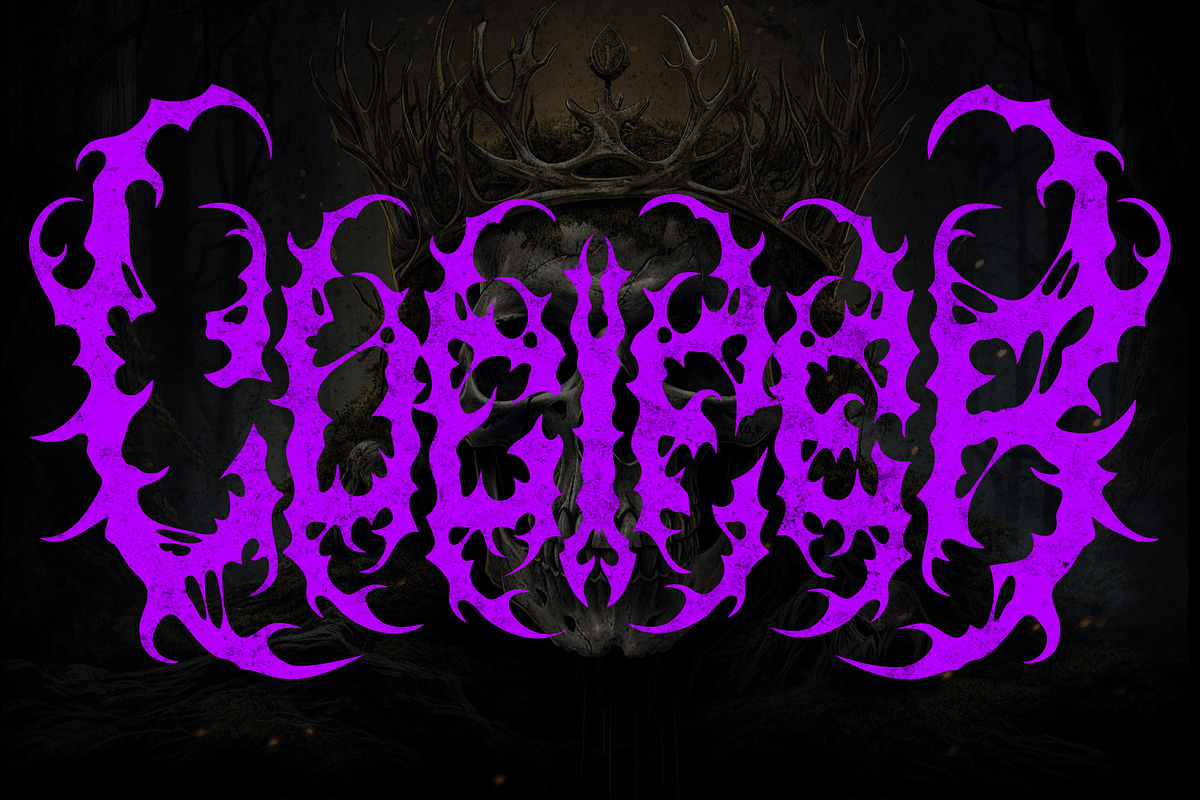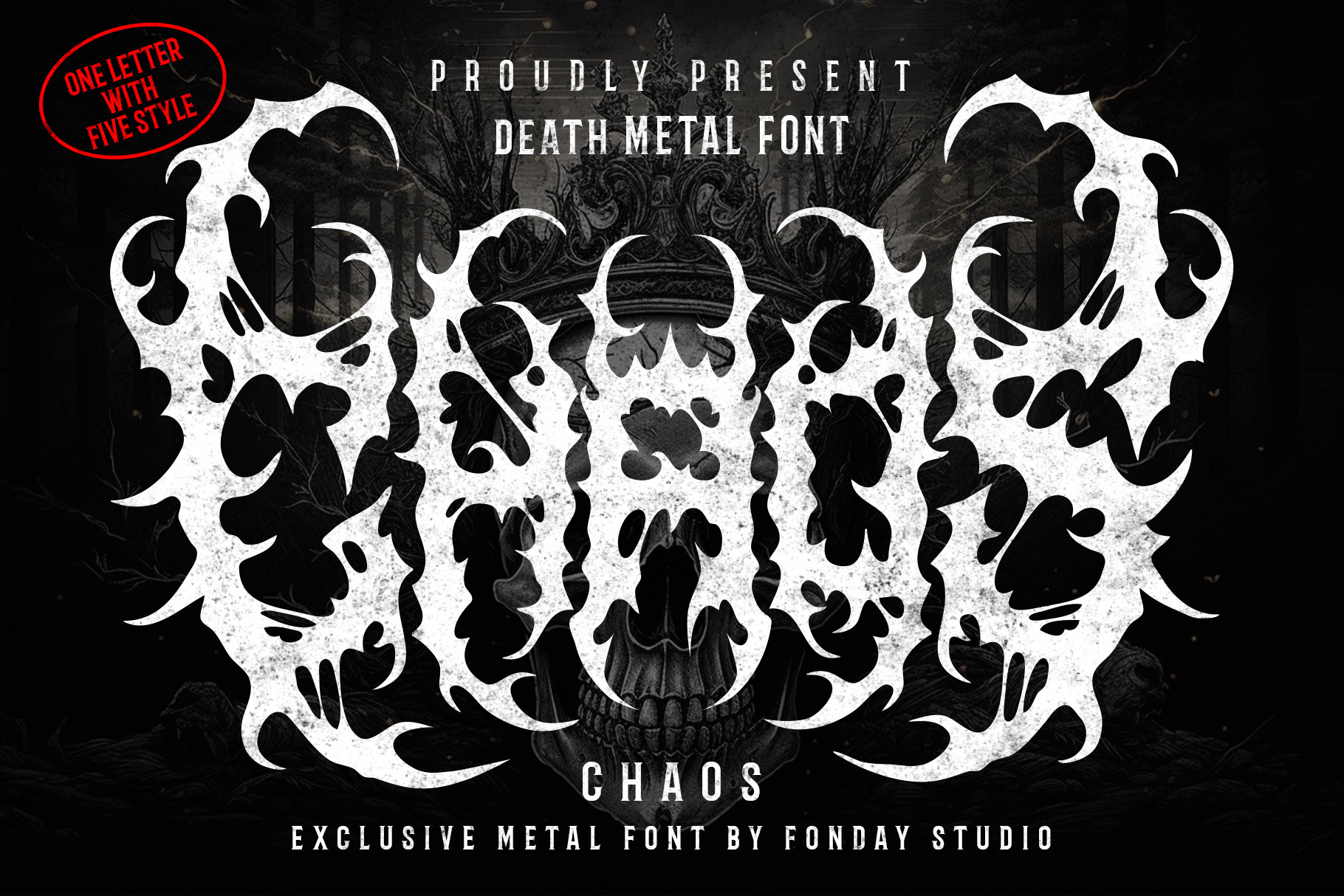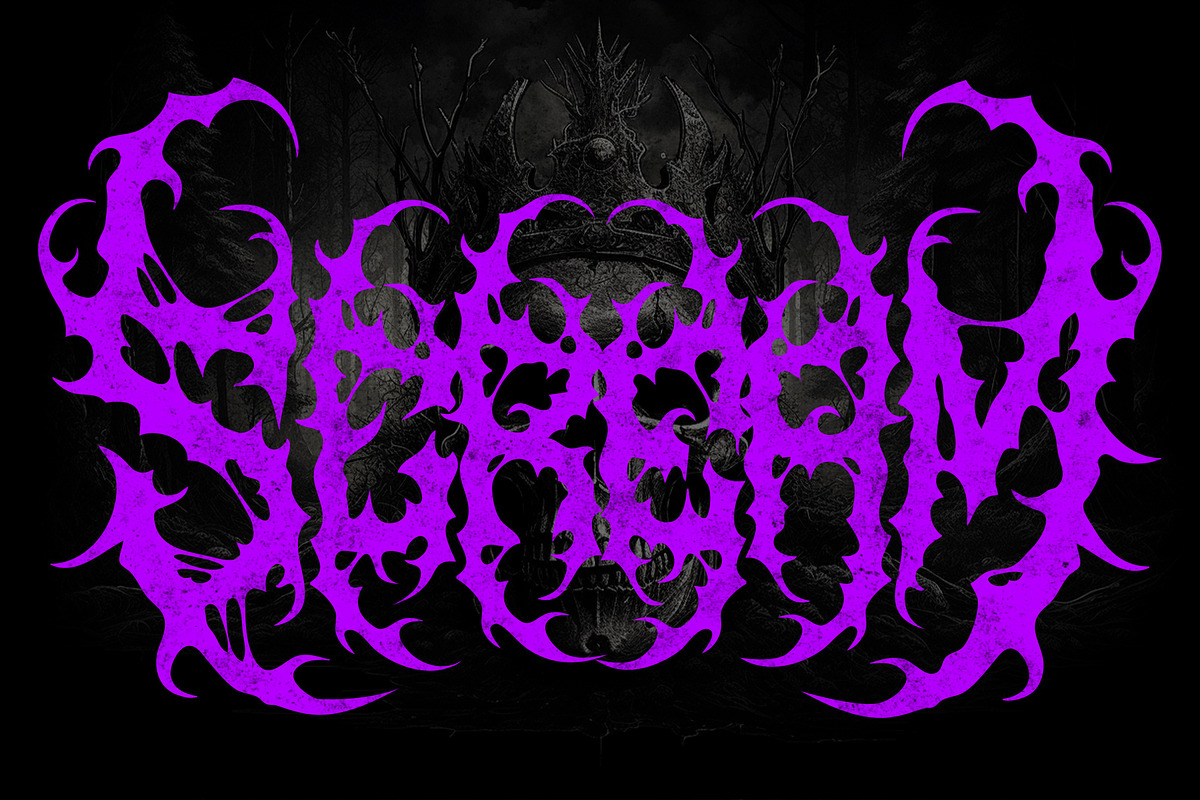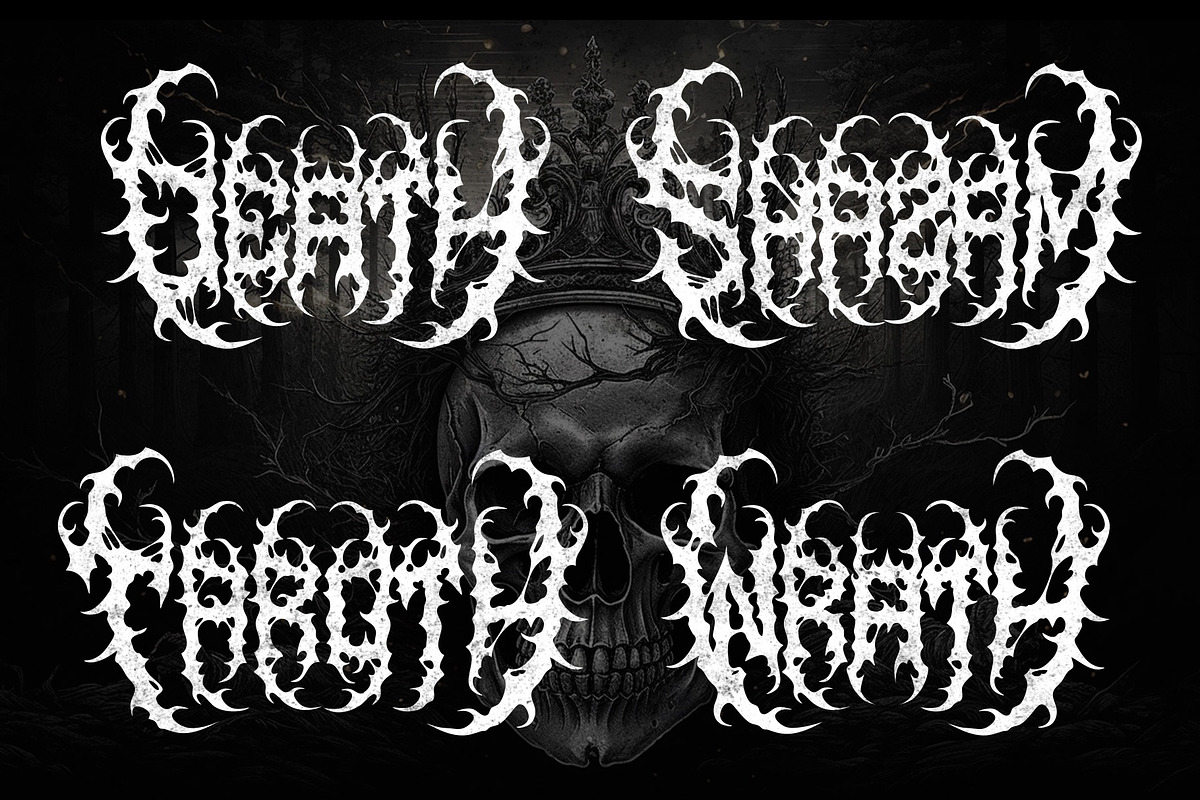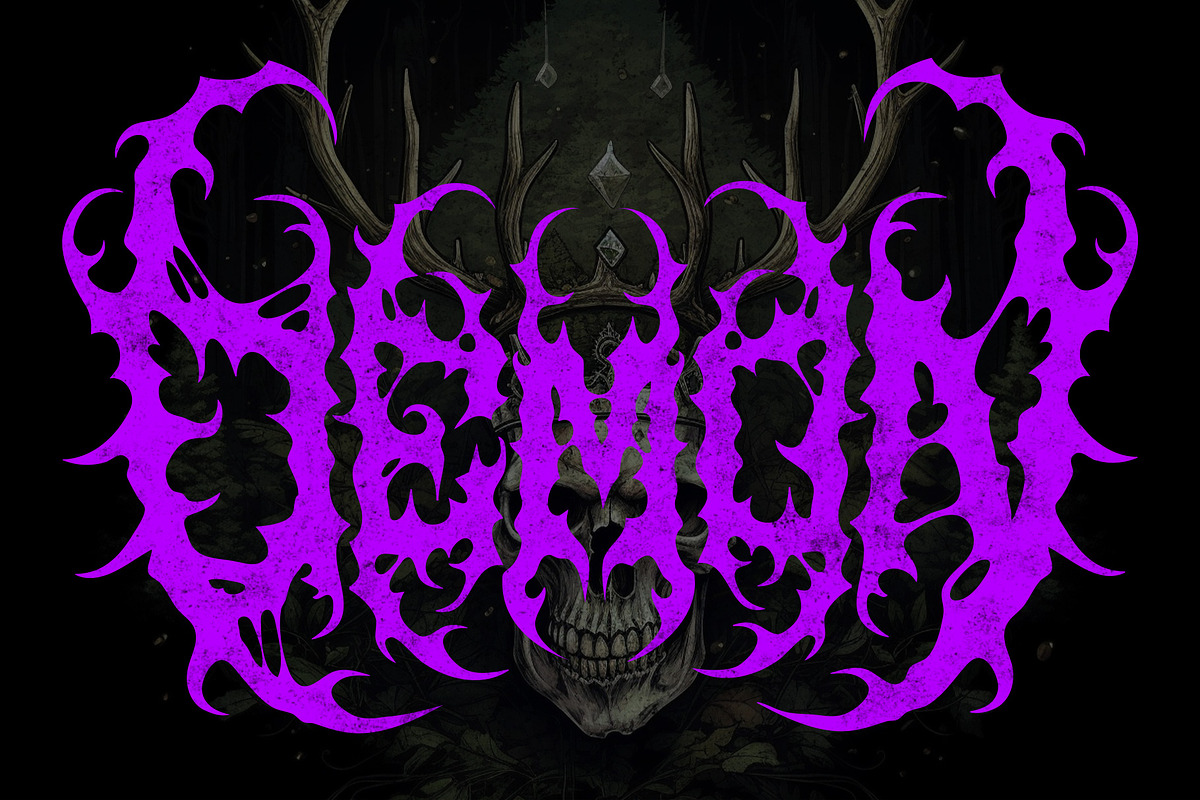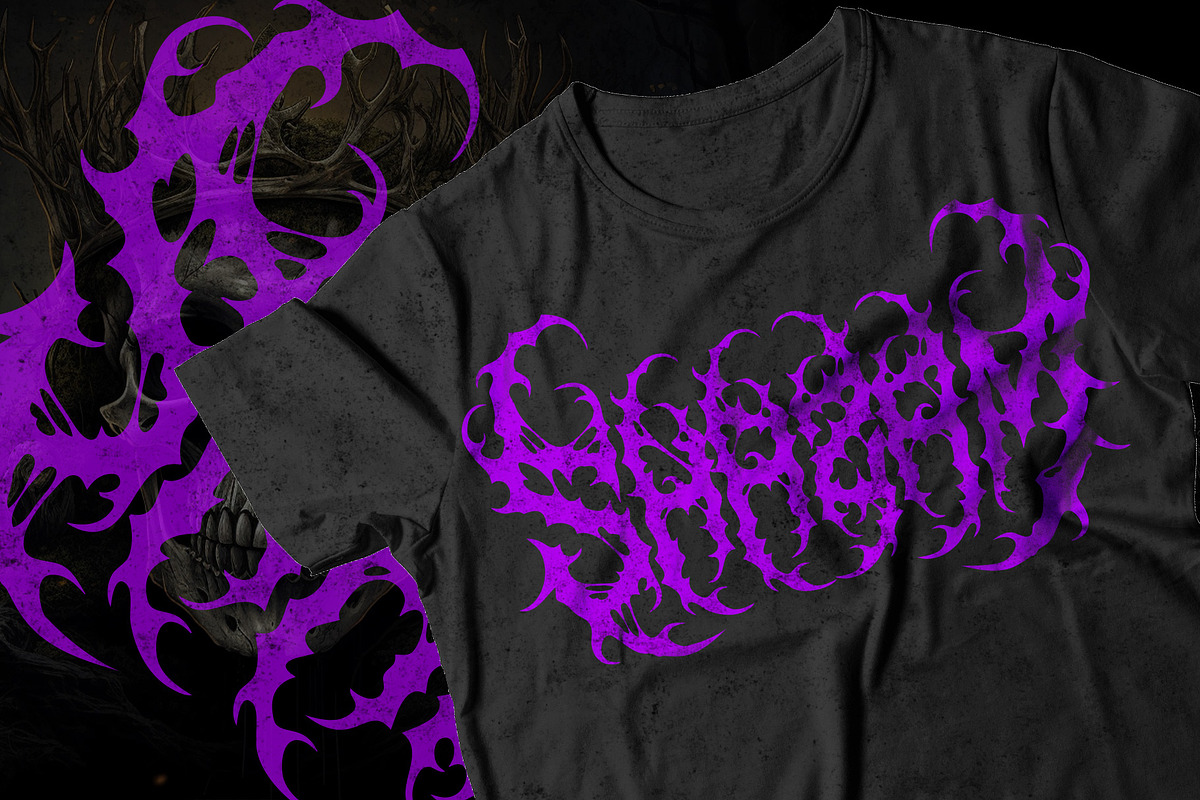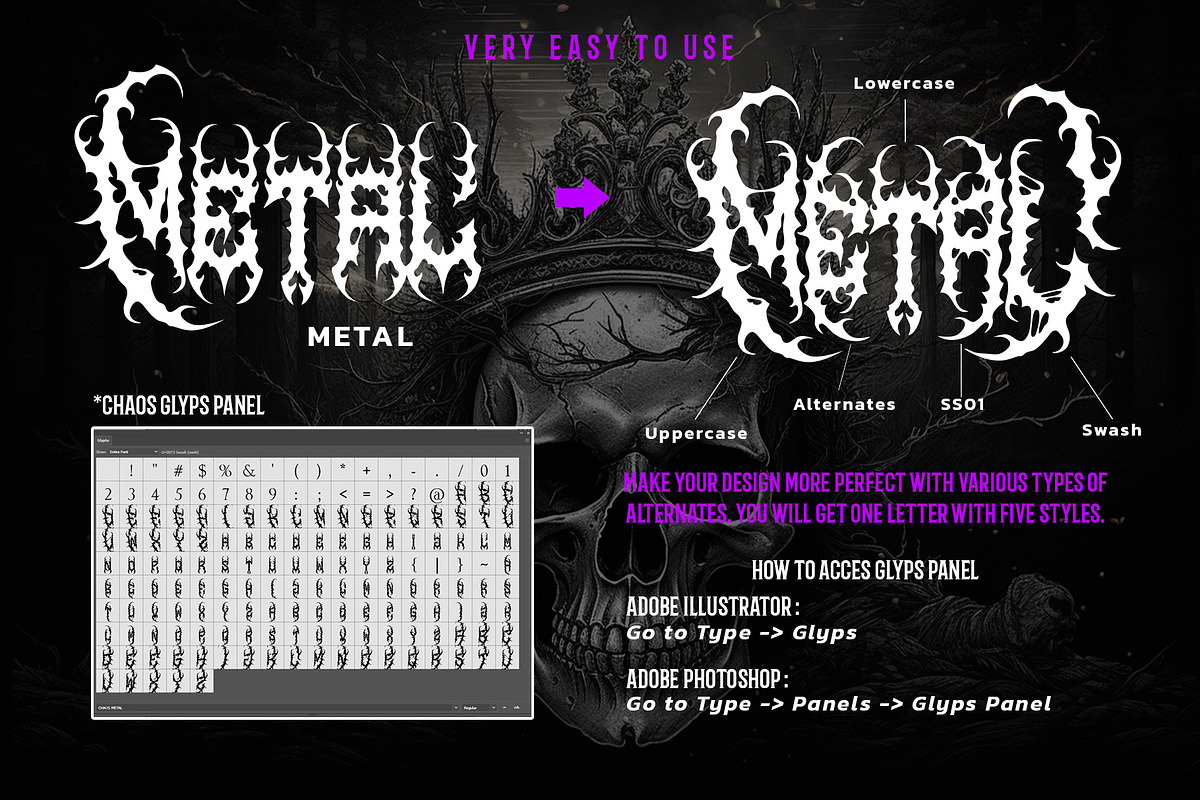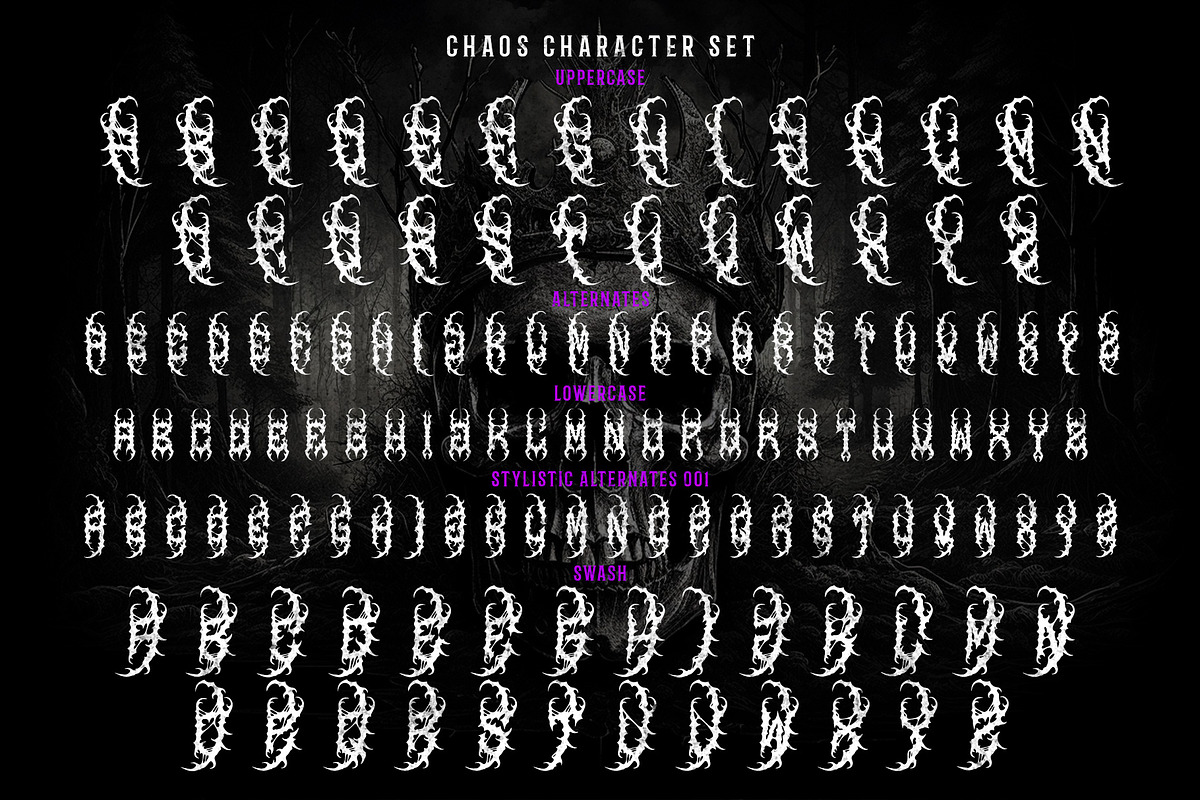
CHAOS – Black Metal Font
Introducing CHAOS, our brutal and intense font that’s perfect for capturing the ferocity of death metal. Chaos’ unique style will help your designs stand out from the crowd, with its bold shapes and distinctive appearance. Whether you’re creating album covers, merchandise, or promoting a death metal concert, Chaos will give your designs a memorable look that captures the essence of death metal music.
This font has 5 styles in one letter which makes it easy for you to be creative with this font.
- All Caps Character
- Stylistic Alternate